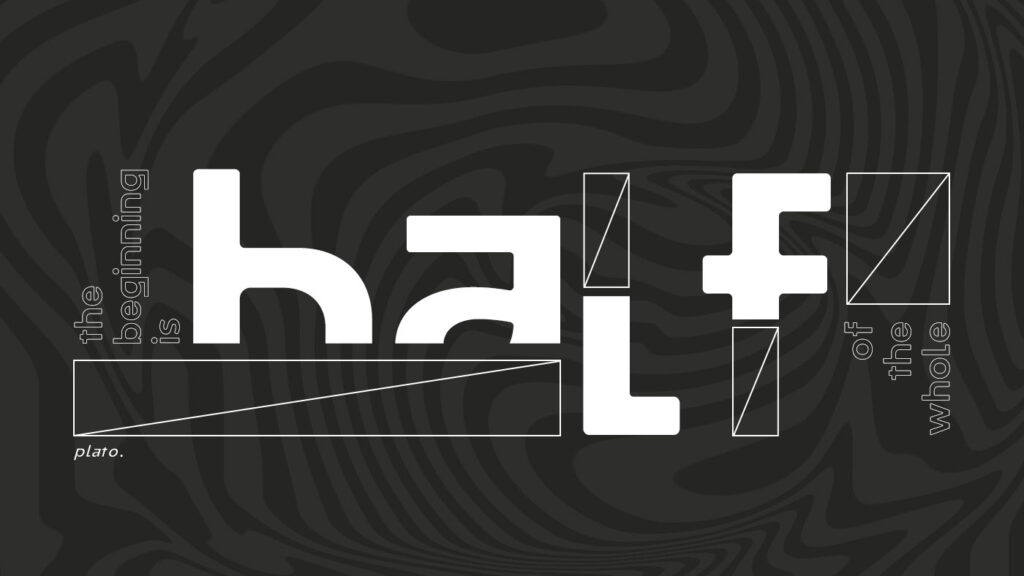
Half is a creative modern display typeface by Caio Designer. It comes in Thin, Regular and Bold weights with mathcing Italics. It also includes Outlined and Half styles.
Half Free Font Family